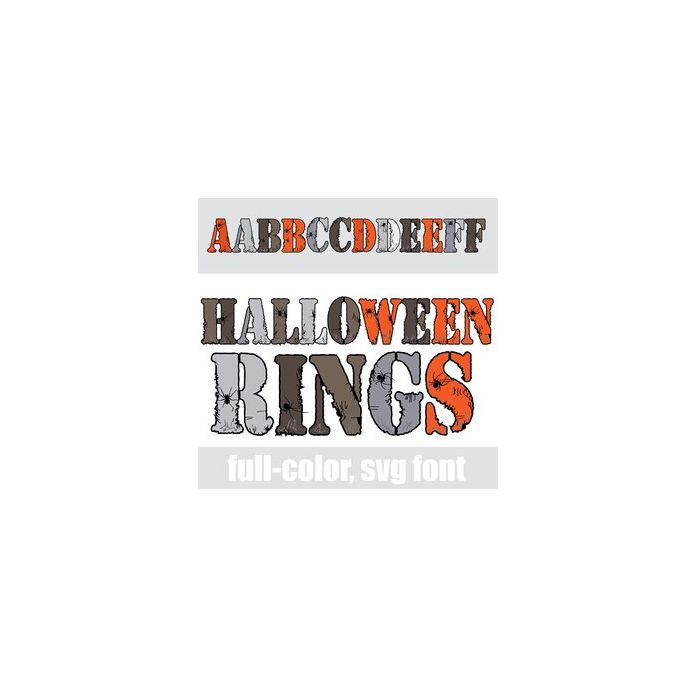
This fun stenciled font features a Halloween color palette, spiders, and grunge. There is an alt case w/ additional colors you can access through your system or Silhouette's glyph map.